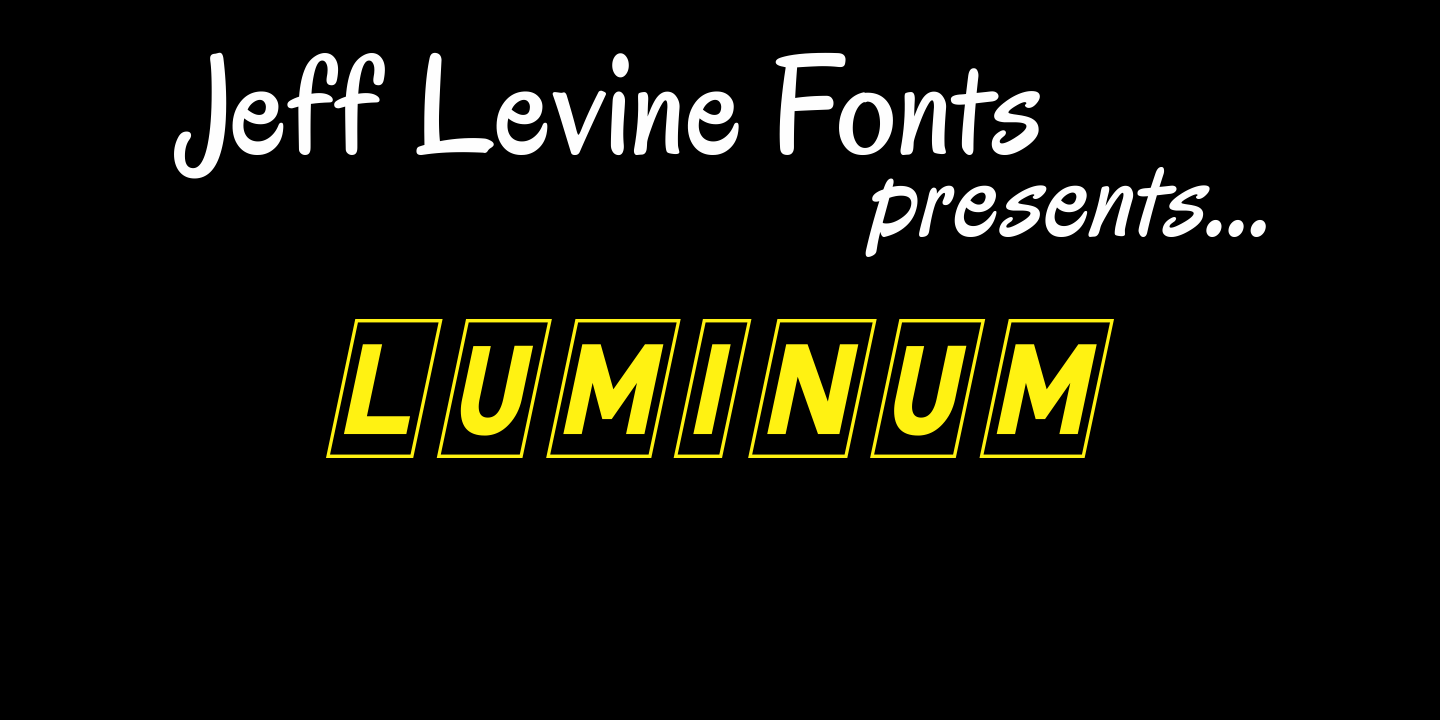
Luminum
In hardware stores across the country are display racks with letters and numbers silk-screened onto self-adhesive aluminum "parallelograms". These handy and durable items have graced countless mailboxes, office doors, hallway signs and automobiles for years.
My fellow font designing buddy [Harold Lohner] suggested that I make a font based on this form of lettering as a counterpart to my Mailbox Letters JNL (also based on self-adhesive signage product)... and now his suggestion takes shape as a digital font... Luminum JNL.